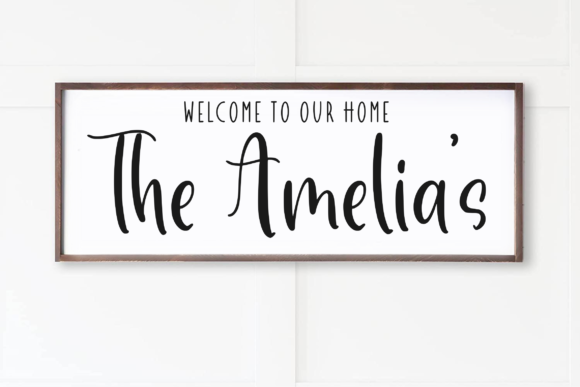
Happymoob Font
db-ku.com - Script & Handwritten -- Happymoob is a sweet and friendly handwritten font. Its natural and unique style makes it incredibly fitting to a large pool of designs. The only limit is your imagination!